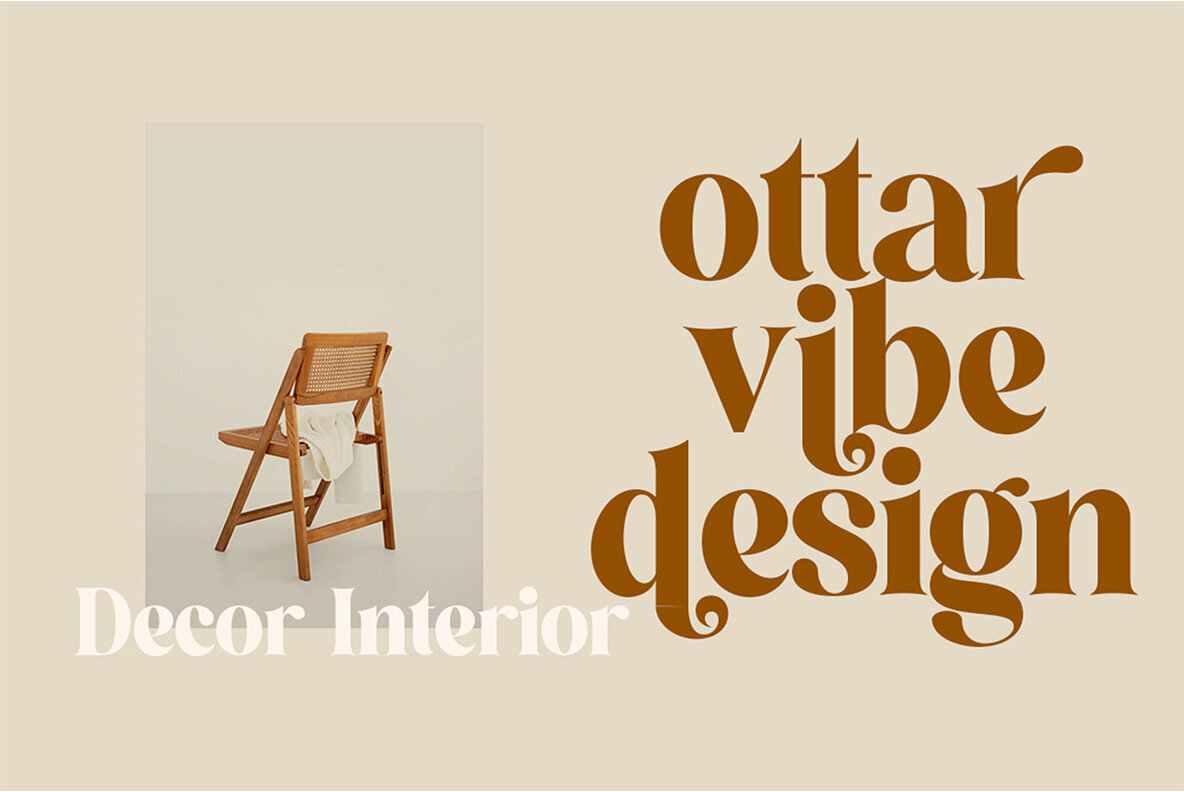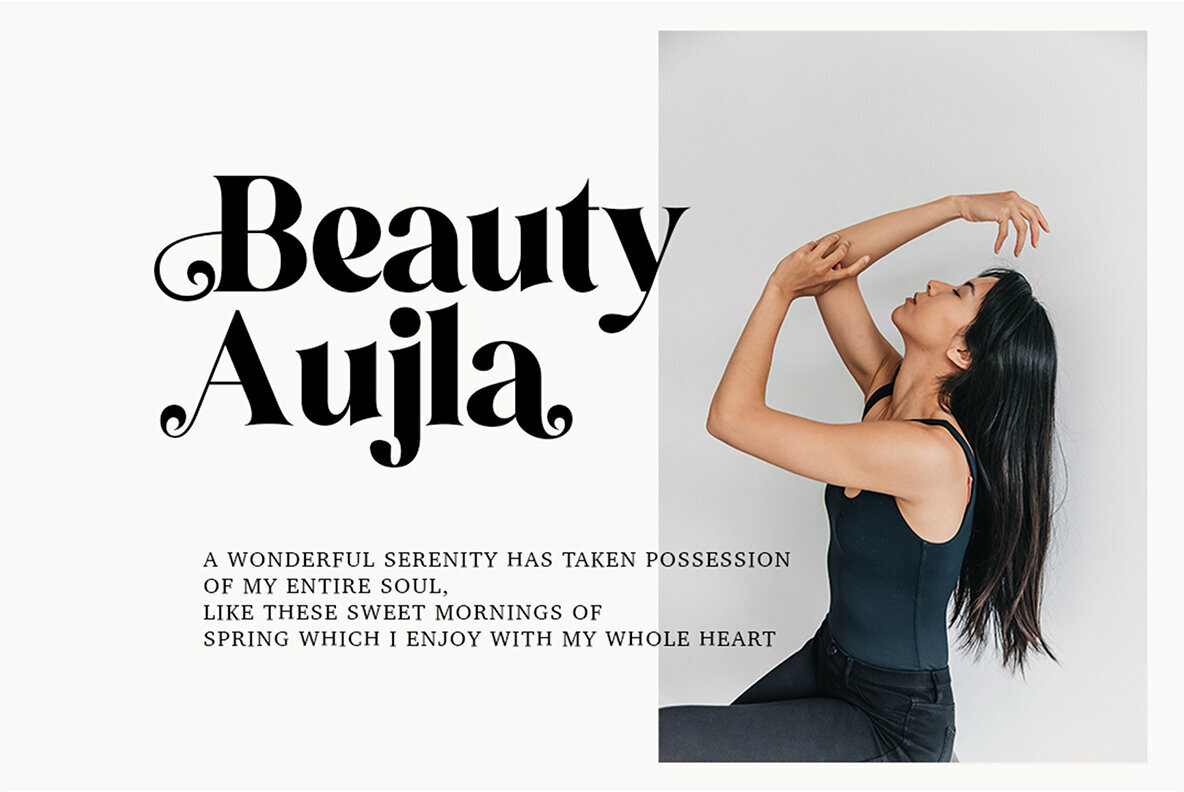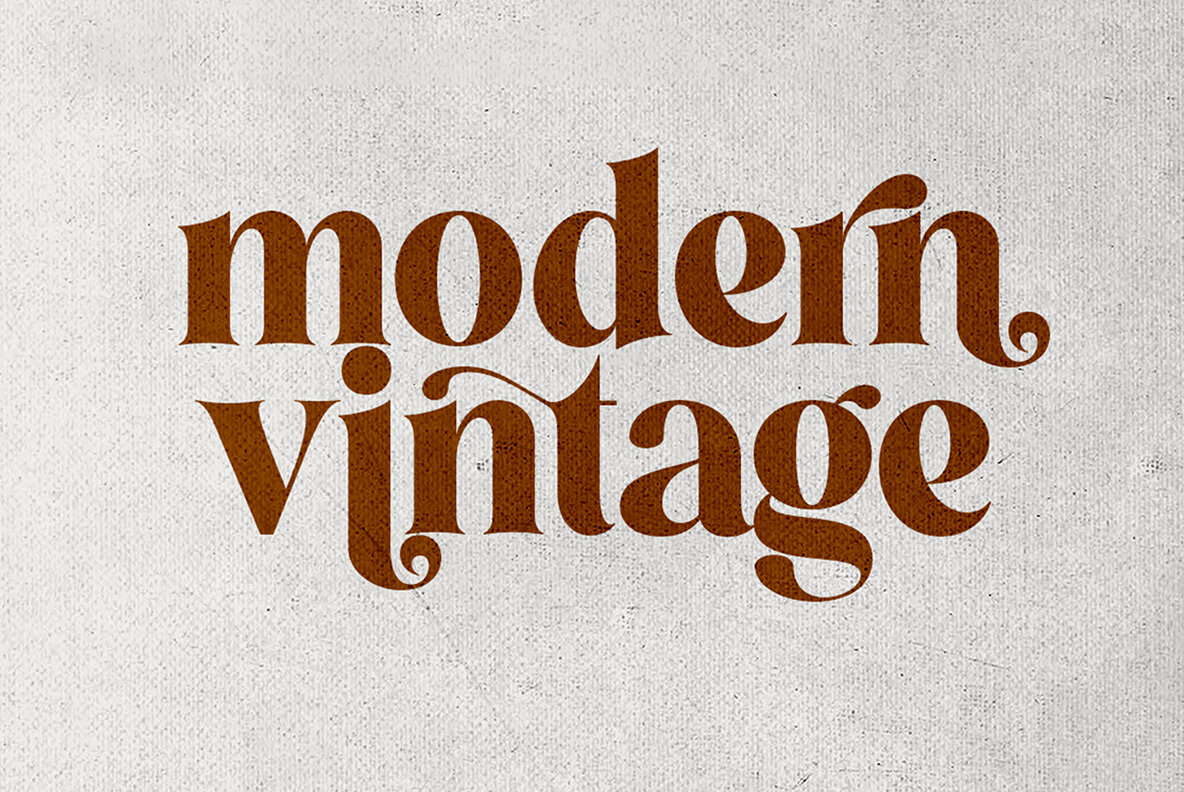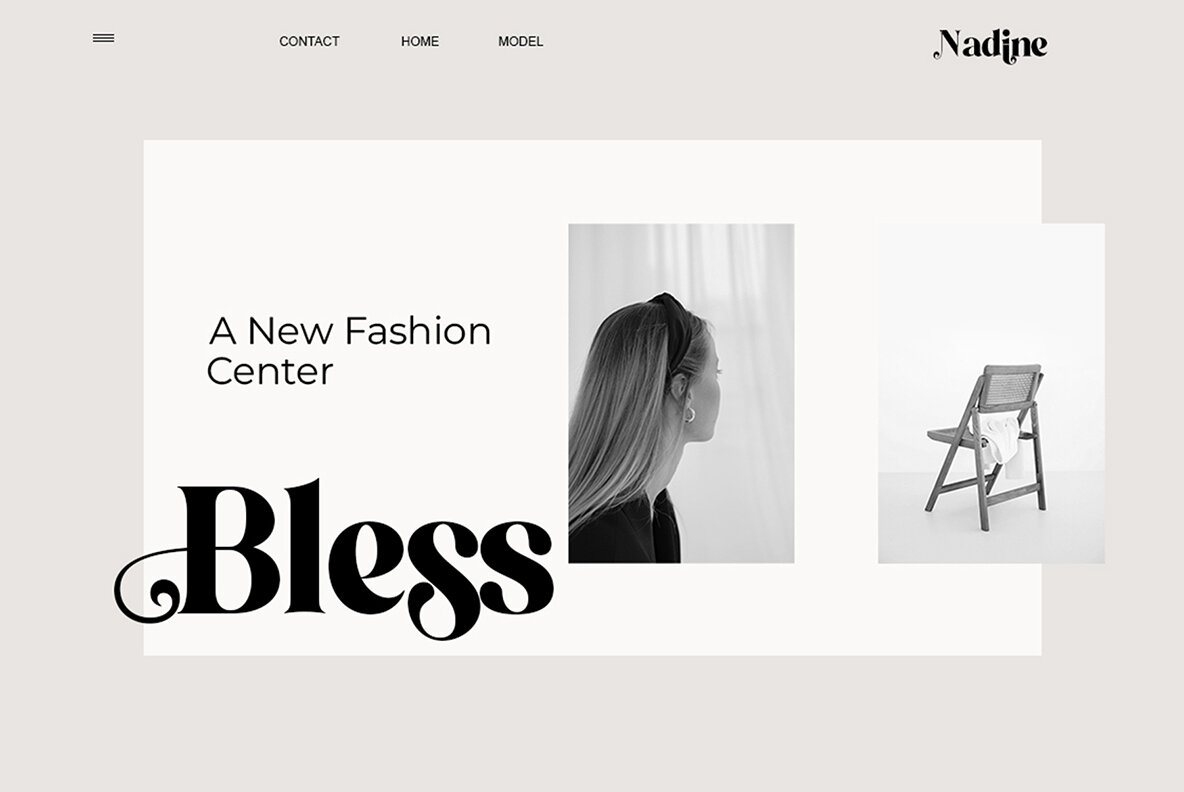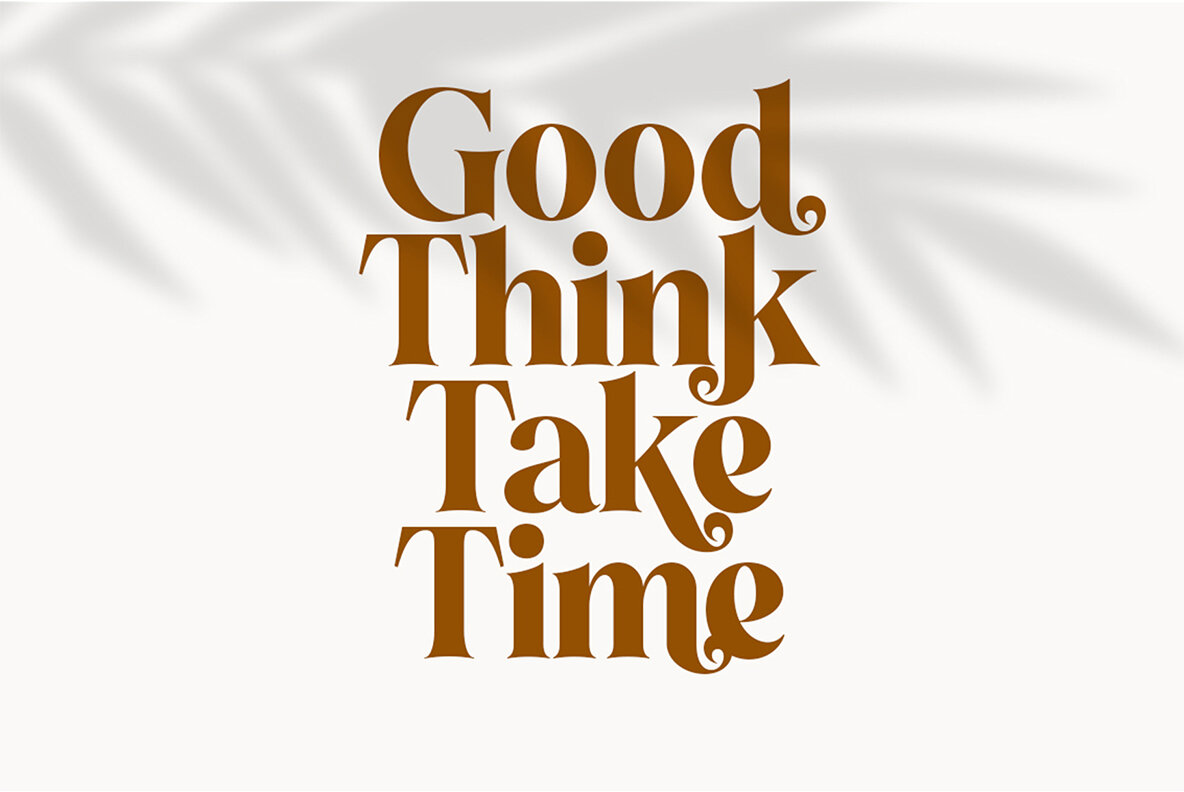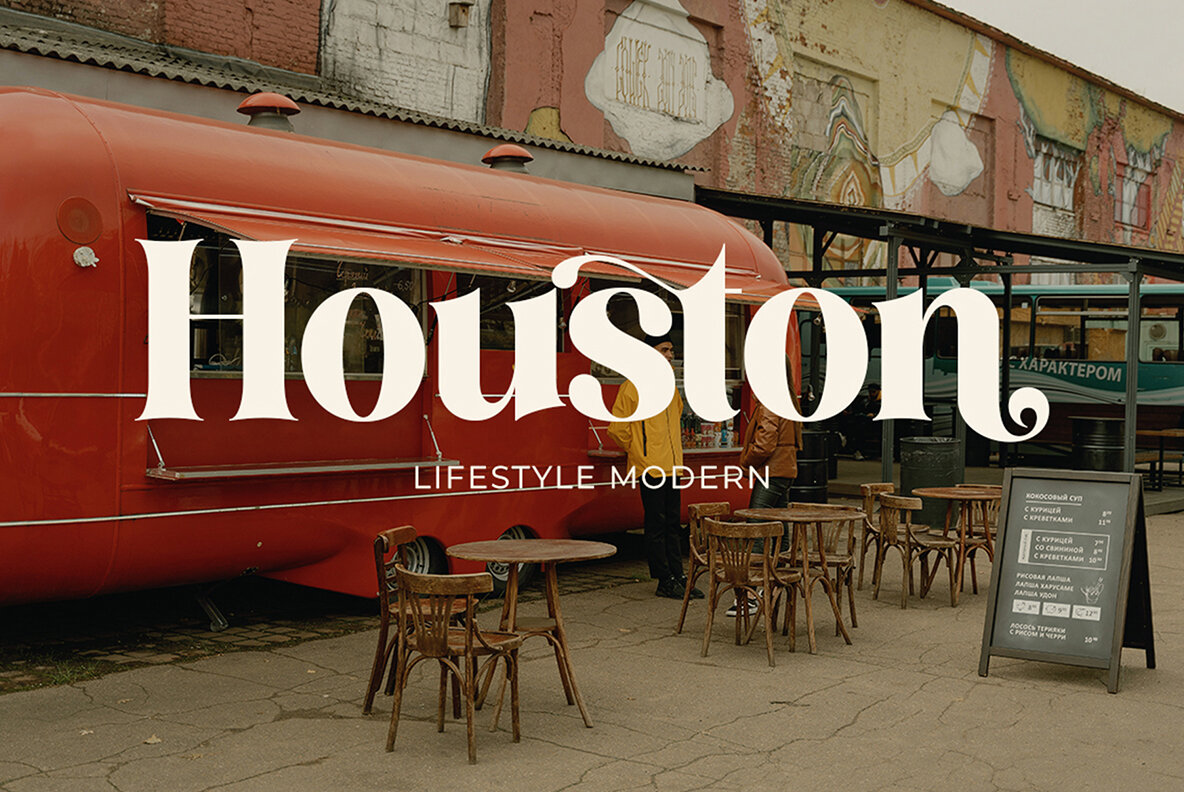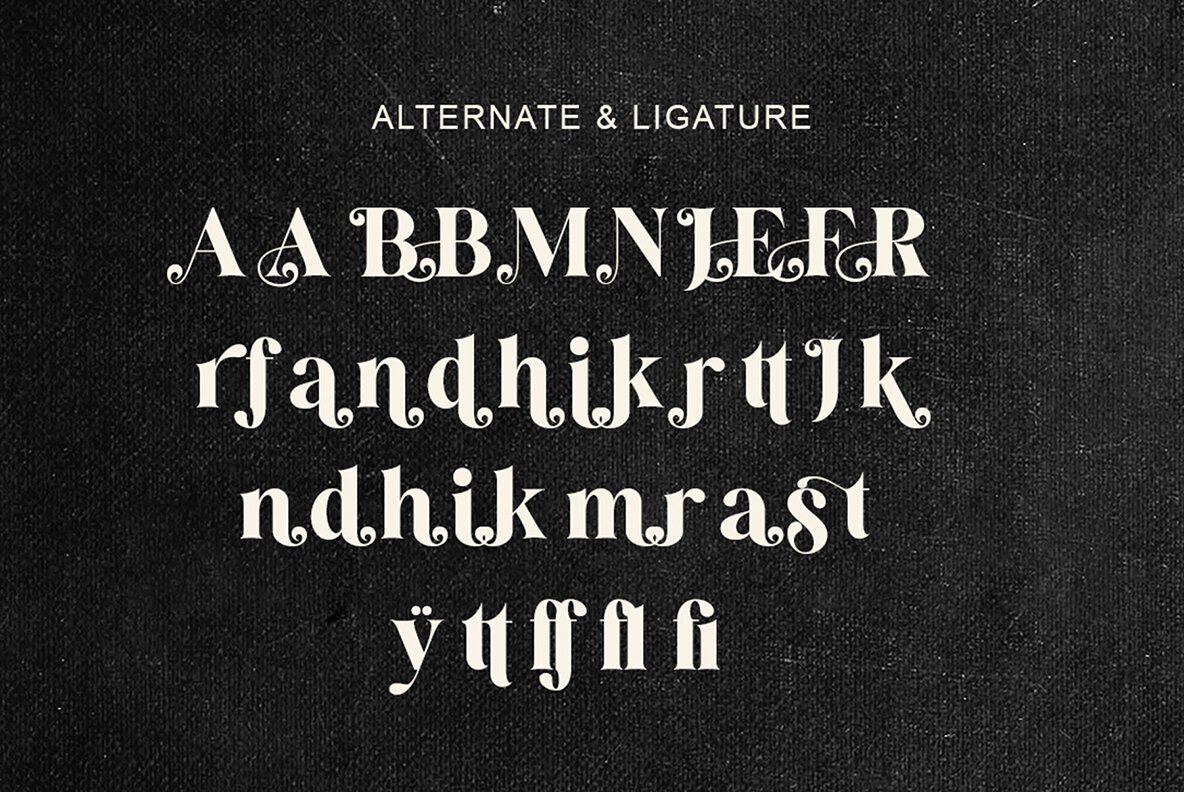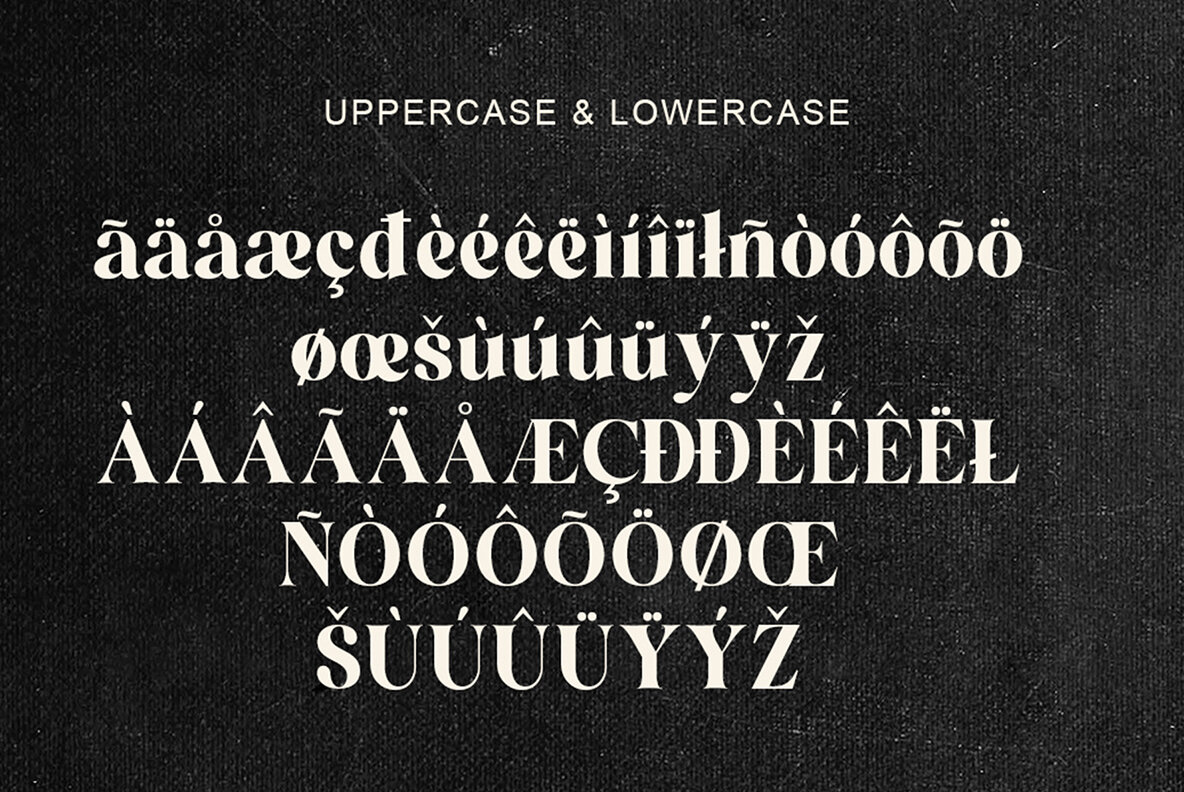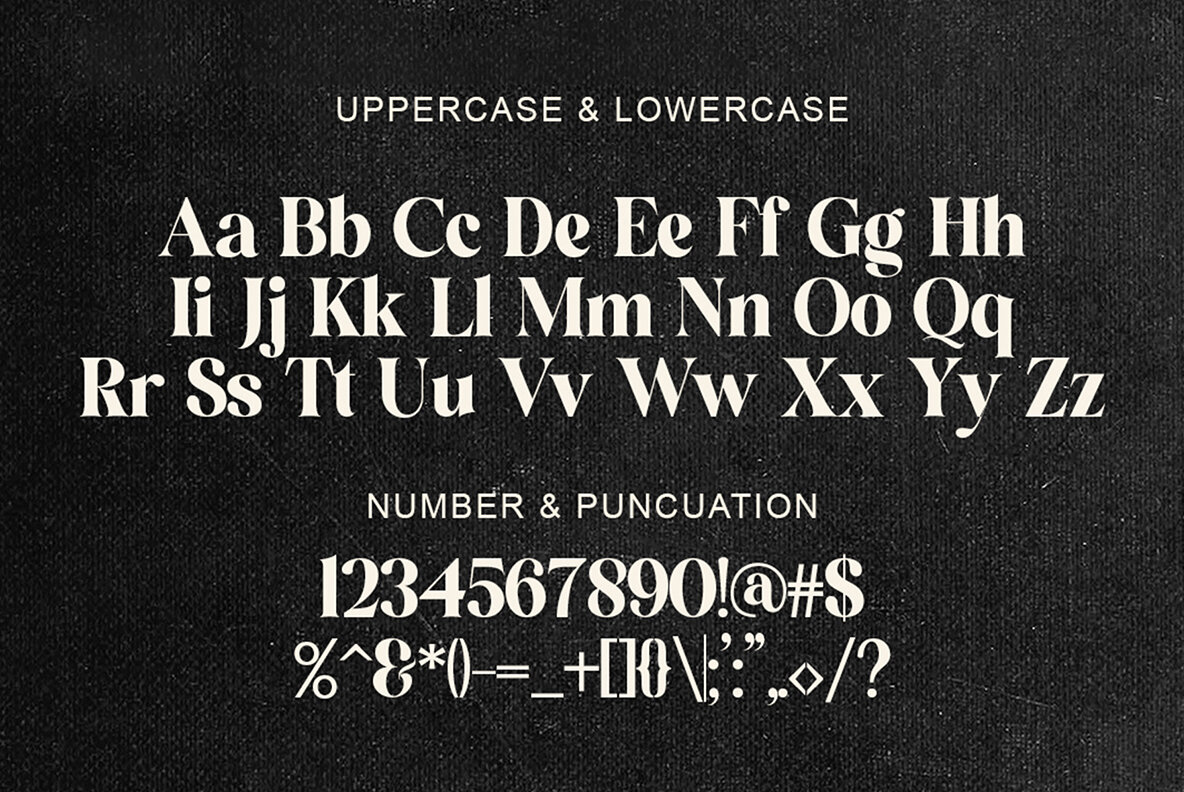
Koffins is a bold vintage-style serif font with solid confidence. This customizable font will look great on a variety of design ideas such as, search style, high contrast and light fonts perfect for feminine logo signs, fashion & editorial design heads, branding projects, Clothing Branding, packaging, magazine titles, advertisements, T-shirts, postcards, valentines, posters, invitations, weddings, branding projects, social media posts, magazines, book covers, and more.
This will add a fun and friendly touch to any of your projects! This font is PUA encoded which means you can access all the glyphs and sweeps easily and more.